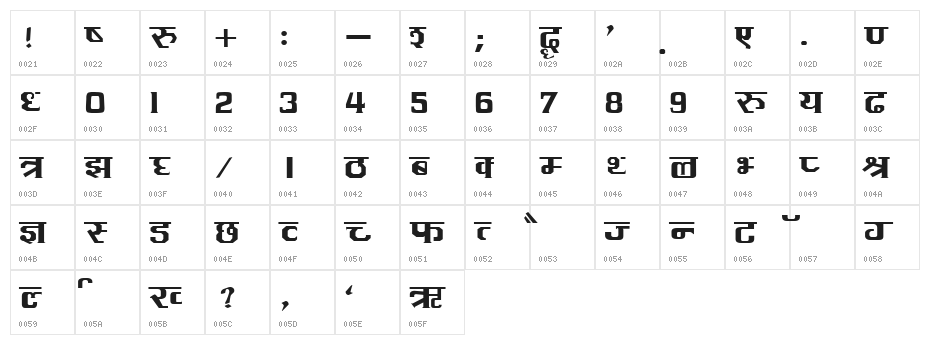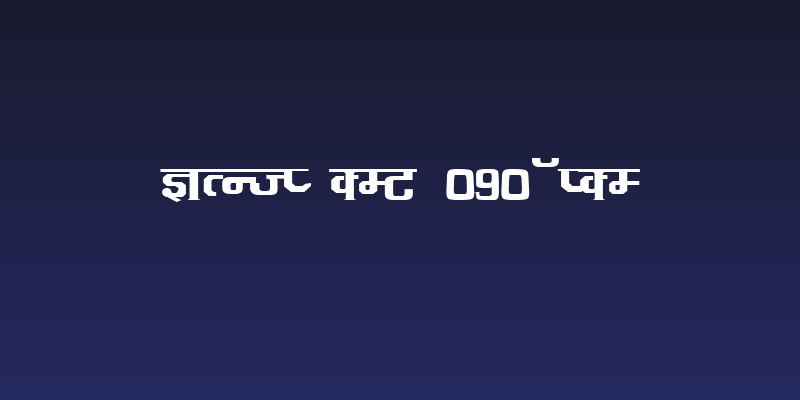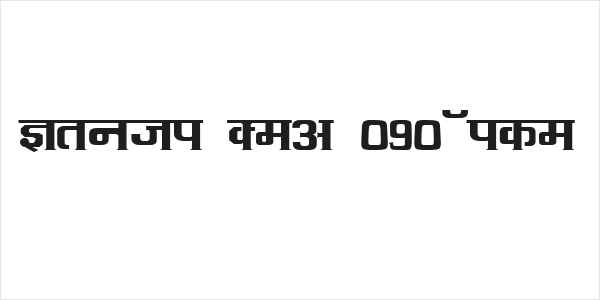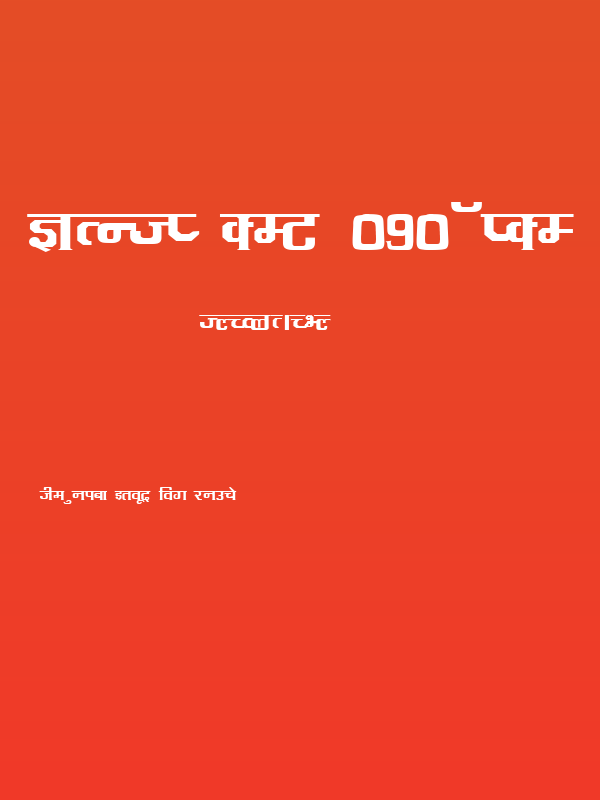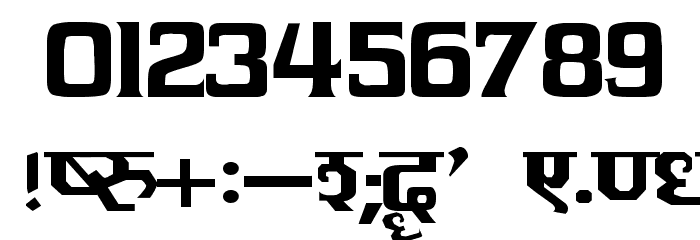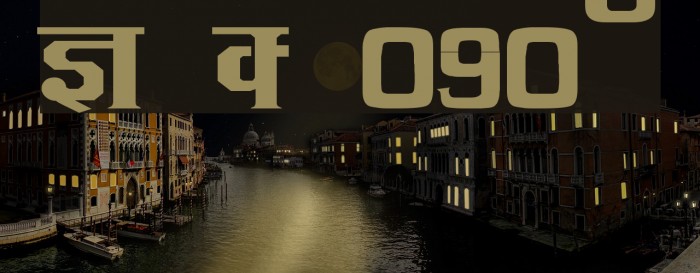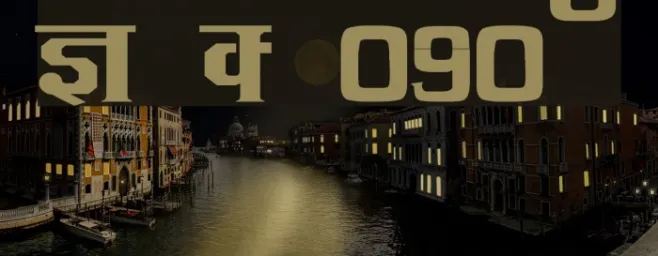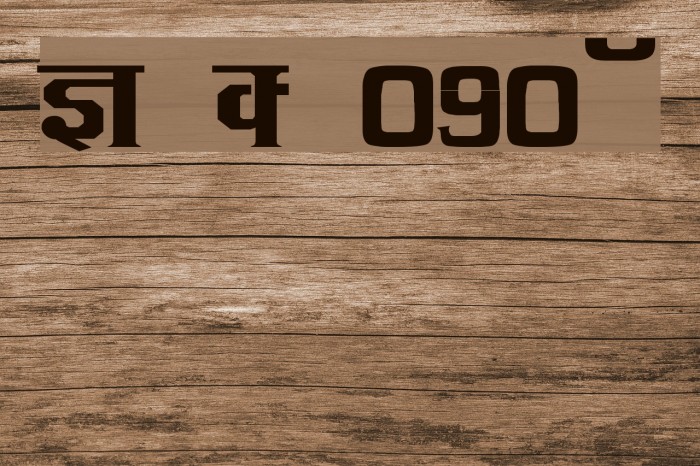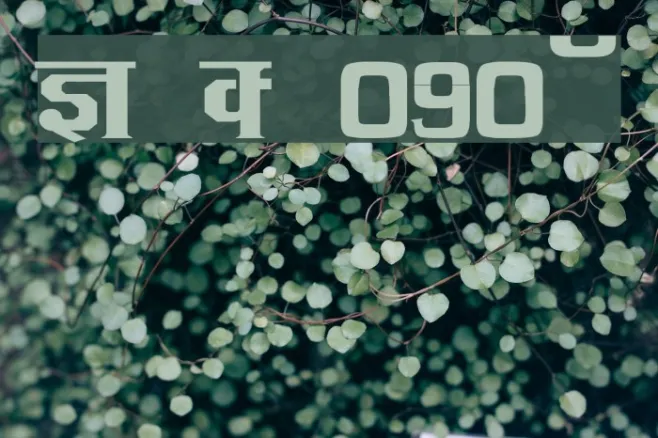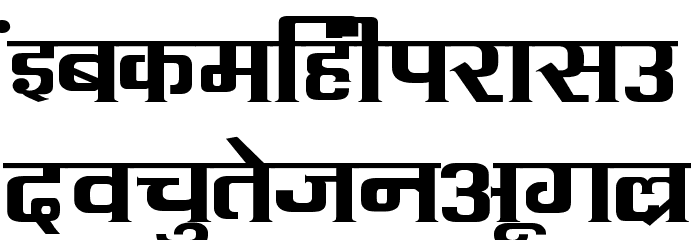
Kruti Dev 090 Wide Font
Kruti Dev 090 Wide Description
This font is a bold and wide Devanagari script, characterized by its strong geometric shapes and thick strokes. It features a high contrast between the thick vertical lines and thinner horizontal lines, giving it a distinct and powerful appearance. The characters are designed with a modern touch, yet they maintain a traditional feel, making it suitable for various cultural and artistic applications. The numerals are equally bold, ensuring consistency across the character set. The special characters are integrated seamlessly, maintaining the overall aesthetic of the font.